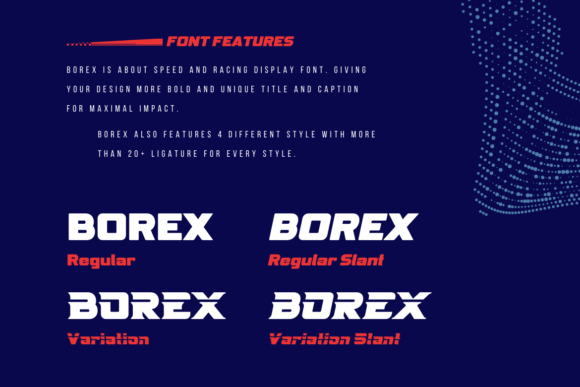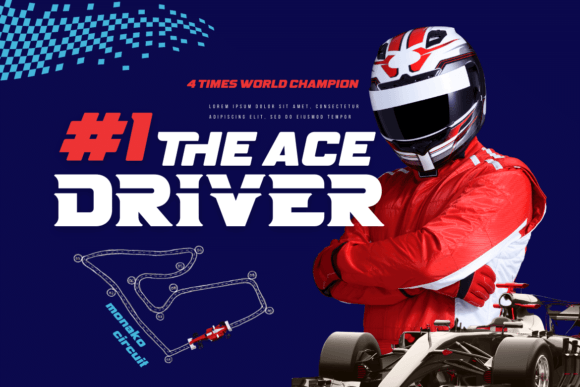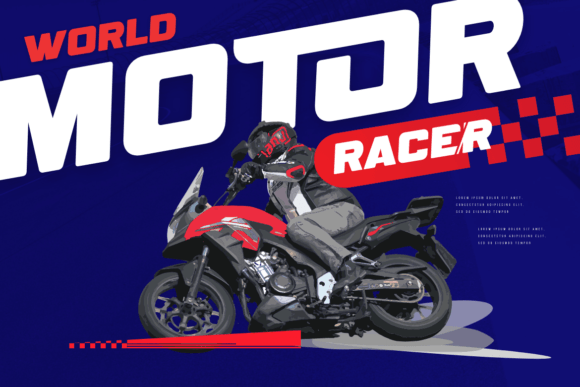
Borex Font
Introducing Borex, the ultimate font for all your sport racing needs. With its bold and dynamic letterforms, it captures the excitement and energy of the race track. And with the four unique variations, including regular, slant, and taper styles, you can customize your designs to fit the tone and theme of your project. Keep in mind that the font is PUA encoded, meaning that you can access all delightful glyphs and swashes effortlessly.